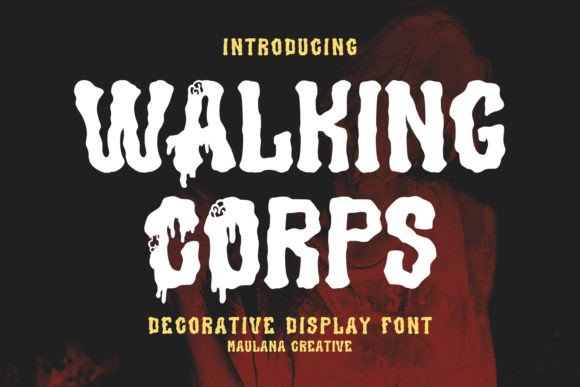
Unleash the Chills with Walking Corps Font: Your Hauntingly Beautiful Display Font
Welcome to the realm of the macabre, where shadows dance and goosebumps rise, where the night whispers secrets and the unknown beckons. Enter Walking Corps Font, a typographic masterpiece designed to send shivers down your spine and capture the very essence of horror.
In the realm of display fonts, Walking Corps Font reigns supreme, conjuring an atmosphere of spine-tingling intrigue with every stroke. Its meticulously crafted glyphs and ligatures intertwine to create a visual symphony of darkness, evoking the haunting beauty of a moonlit graveyard or the eerie stillness of a forgotten mansion.
As a font specifically tailored for small displays, Walking Corps Font excels at capturing attention and delivering a powerful impact in limited spaces. Whether you're crafting invitations for a Halloween soirée, designing posters for a haunted house attraction, or creating headings for your horror-themed website, this font will make your words dance with a sinister allure.
Immerse yourself in the dark elegance of Walking Corps Font and let your creativity run wild. Envision the gasps of awe as your audience encounters your designs, their eyes drawn to the captivating curves and chilling details that make this font a true masterpiece of the macabre.
With Walking Corps Font, you'll have the power to:
• Evoke a Sense of Unearthly Charm: Whether it's a Halloween flyer or a horror movie poster, Walking Corps Font imbues your designs with an otherworldly charm that's sure to leave a lasting impression.
• Weave a Tapestry of Typographic Terror: From invitation cards to eerie postcards, this font weaves a tapestry of typographic terror, captivating your readers with its haunting aesthetics and bone-chilling vibes.
• Create Hauntingly Inviting Headings: Let Walking Corps Font grace the headings of your website or blog, beckoning visitors to delve into the depths of your chilling content.
• Unleash Your Darkest Creative Instincts: Dive into the depths of your imagination and let your darkest creative instincts run free. Walking Corps Font will faithfully translate your visions into tangible works of art that are sure to send shivers down spines.
Unleash the power of Walking Corps Font today and let your creativity take a thrilling journey into the realm of the supernatural. Embrace the darkness and watch as your designs transform into chilling masterpieces that captivate and horrify in equal measure.